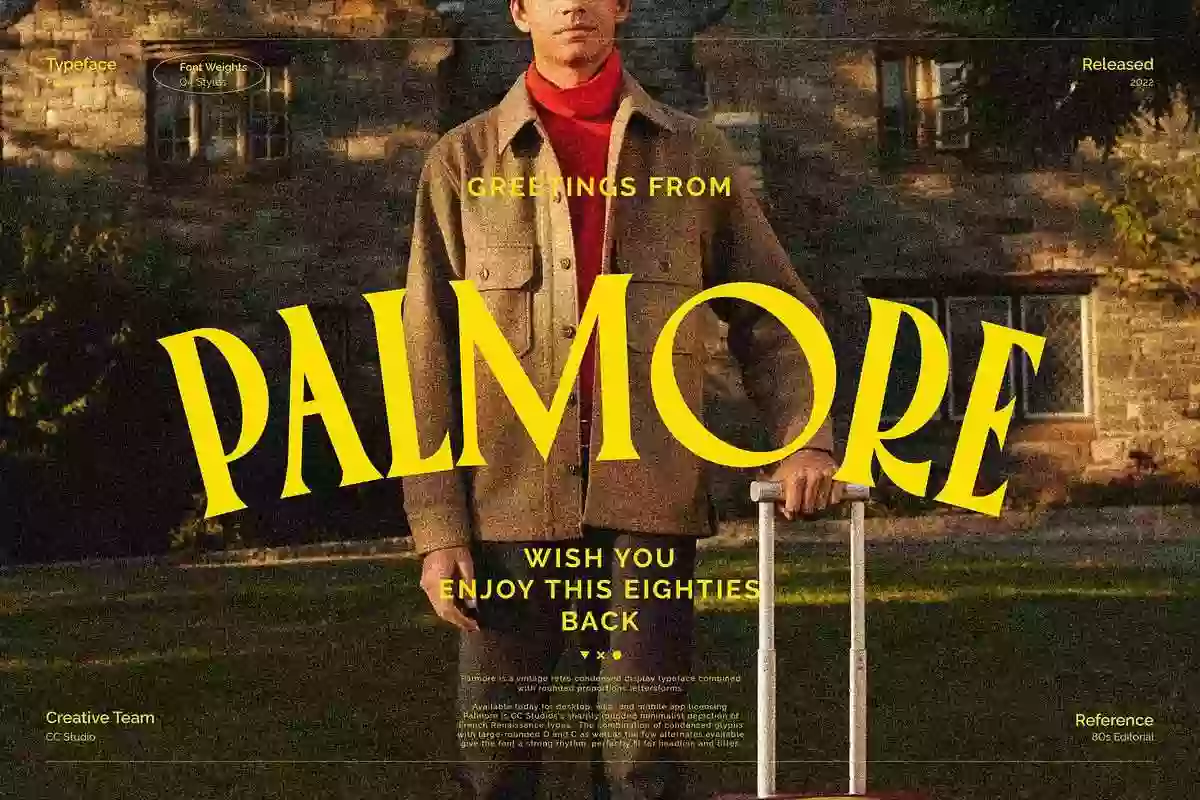
Palmore is a sophisticated serif font designed to capture the essence of early typography. With its classic aesthetic, this typeface embodies the timeless beauty of vintage design. What sets Palmore apart is its condensed form, combined with soft, rounded shapes that create a harmonious balance between elegance and readability. Whether used for headlines, branding, or editorial content, this font exudes a sense of tradition while maintaining a modern appeal.
One of the defining characteristics of Palmore is its strong and compact letter structure. The font family features bold, stable letterforms that convey a sense of confidence and reliability. Notably, the large, rounded ‘O’ and ‘C’ contrast with the more geometric elements of the design, adding a touch of warmth and visual interest. This subtle contrast makes Palmore an excellent choice for catching the reader’s attention while maintaining a refined and sophisticated look.
Palmore is an ideal choice for those who appreciate traditional and vintage typography. It offers a nostalgic charm while seamlessly fitting into contemporary design projects. With a comprehensive set of over 300 glyphs, including alternative characters and multi-language support, this typeface allows designers to experiment and create unique compositions. Whether used in branding, packaging, or editorial layouts, Palmore provides endless creative possibilities.